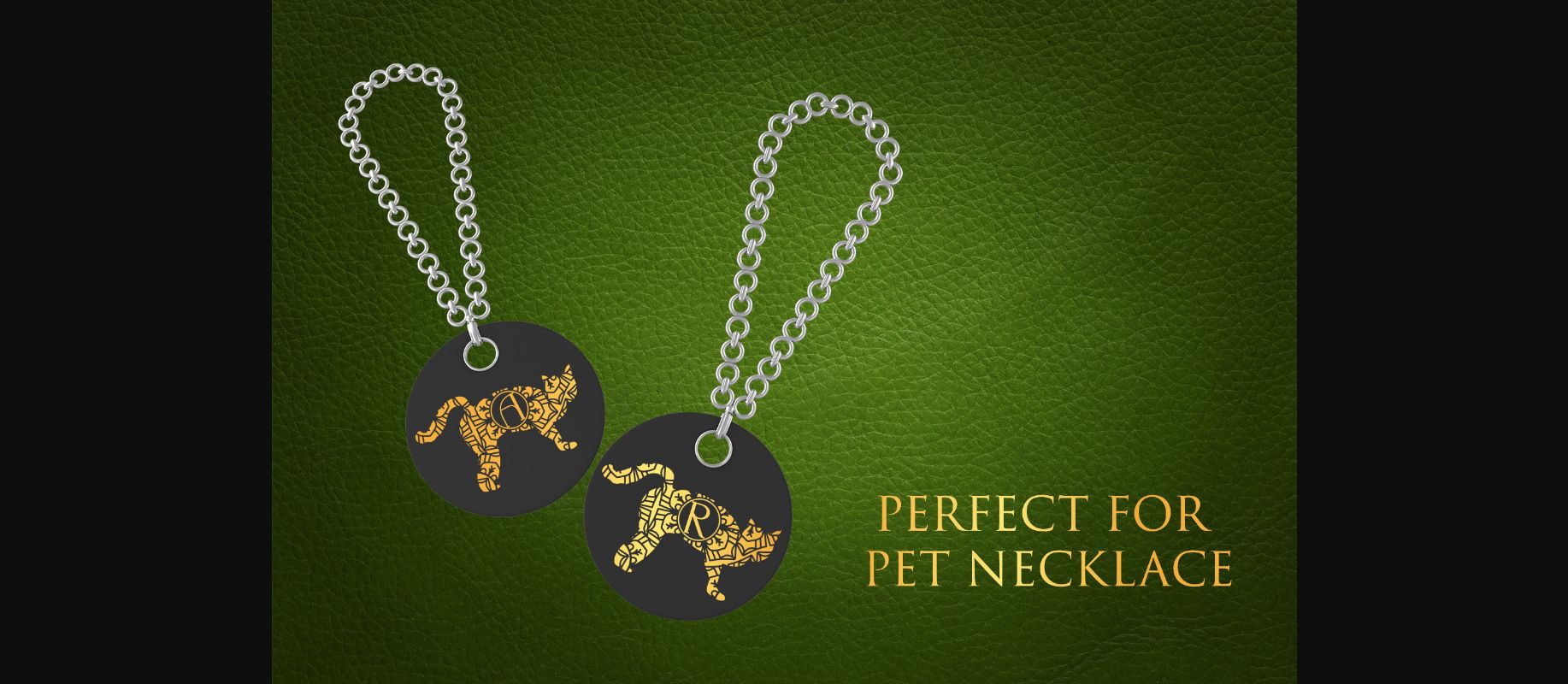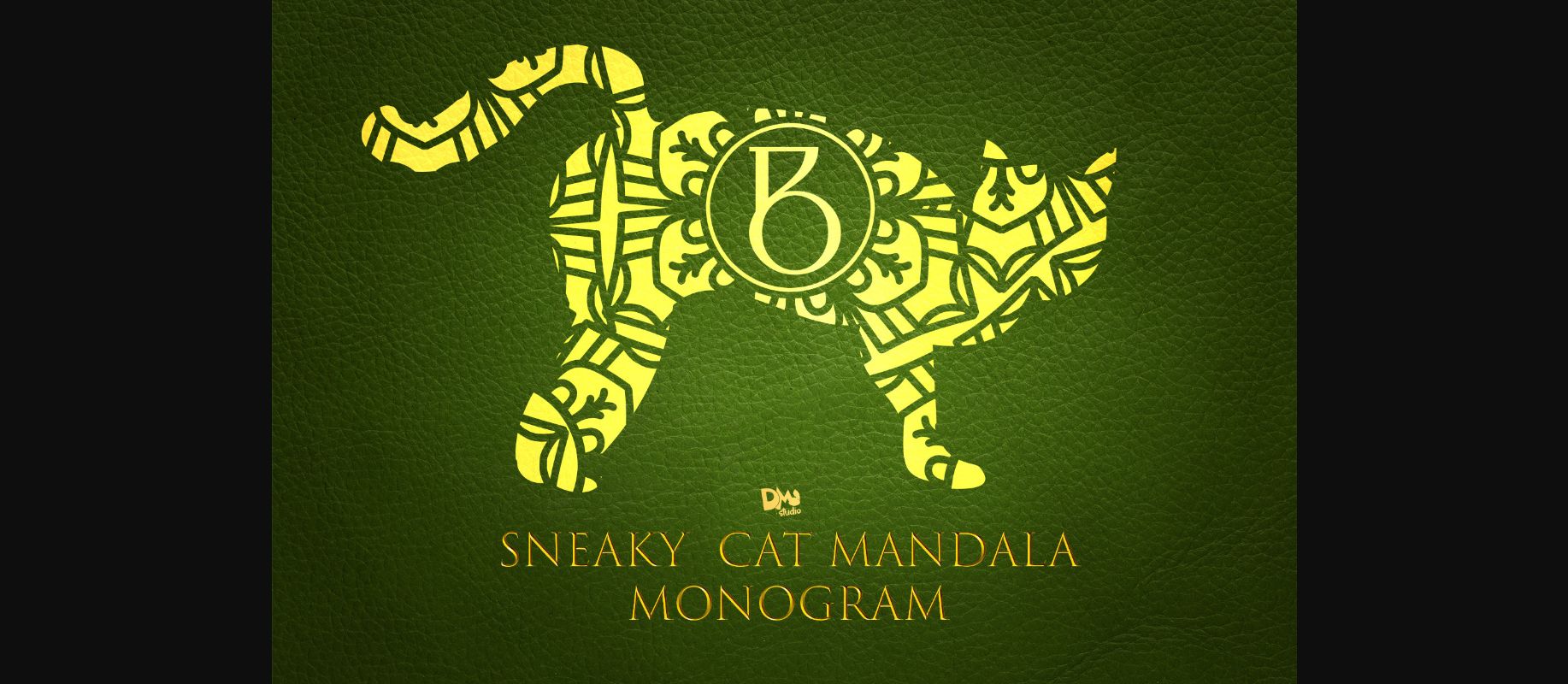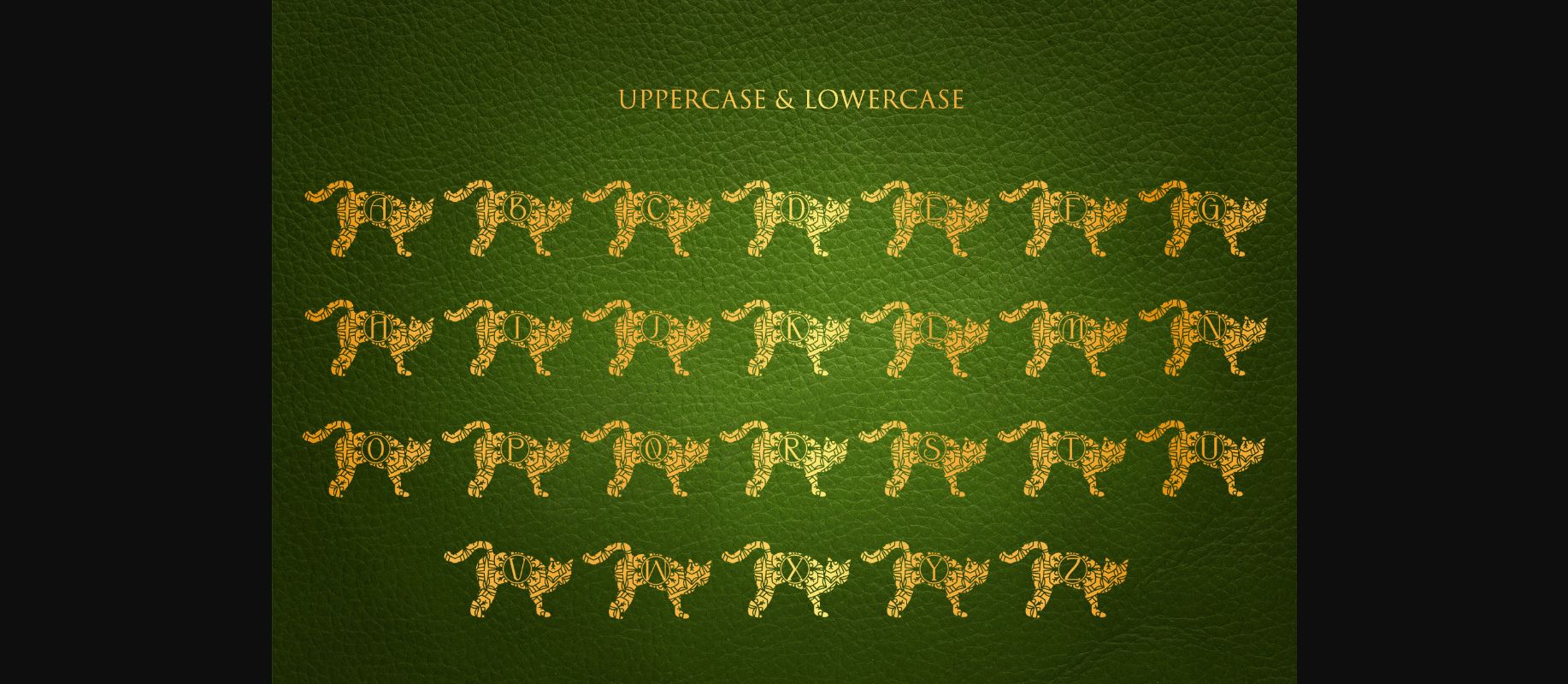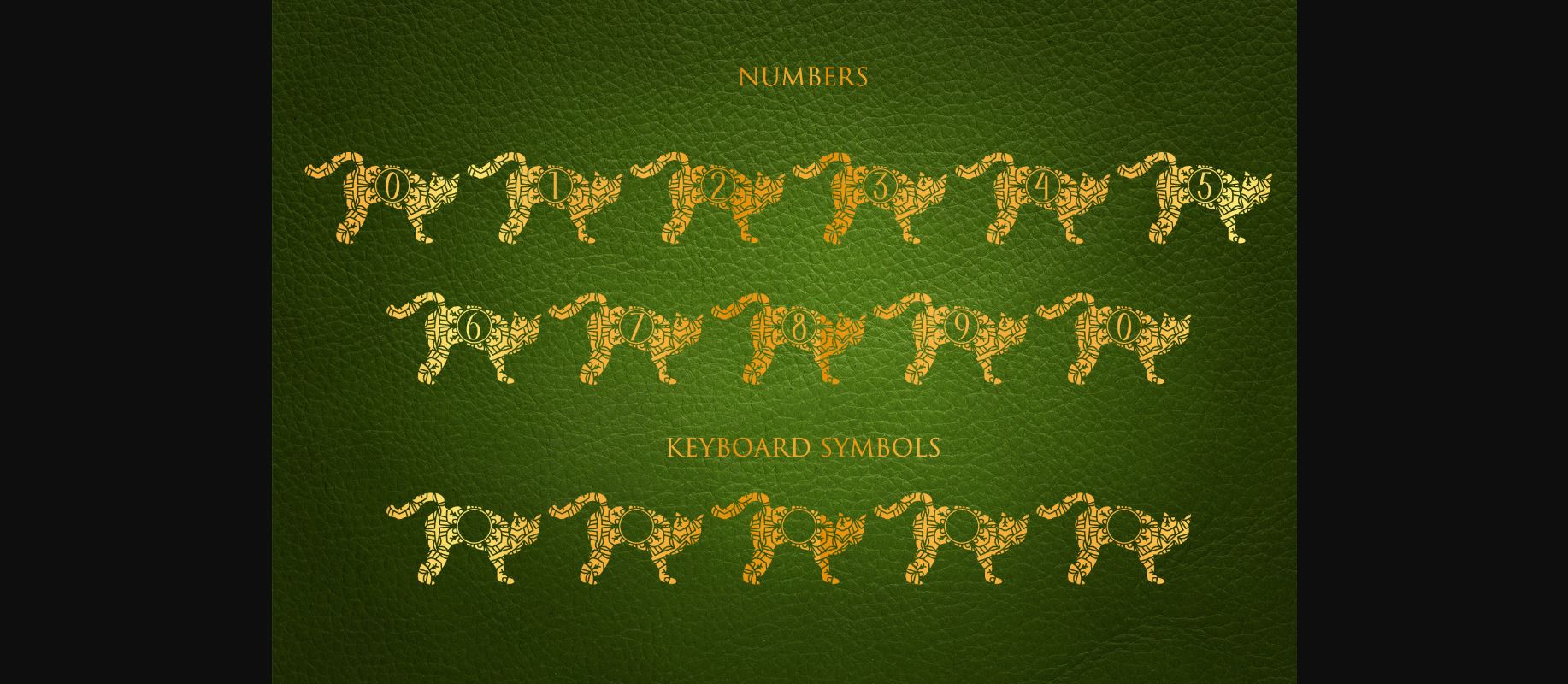
HomeDecorative FontsSneaky Cat Mandala Monogram Font Decorative Fonts Sneaky Cat Mandala Monogram Font FacebookXPinterestWhatsApp 1 of 6 ... Sneaky Cat Mandala Monogram Font Poster 2... Sneaky Cat Mandala Monogram Font Poster 3... Sneaky Cat Mandala Monogram Font Poster 4... Sneaky Cat Mandala Monogram Font Poster 5... Sneaky Cat Mandala Monogram Font Poster 6... About Sneaky Cat Mandala Monogram Font Sneaky Cat Mandala Monogram is the ultimate cat-lovers font. This purrfect decorative typeface will enhance any creative project dedicated to kittens. DOWNLOAD NOW People also explored Wedding Font Popillons Font Yellow Daisy Font Stephany Font Caty Tail Style Font Valentine Day Font Angel Font Hello January Font Xiborgs Font 324 0 TagsSneaky Cat Mandala Monogram Font Previous articleBoxing FontNext articleProud Cat Mandala Monogram Font LEAVE A REPLY Cancel reply Comment: Please enter your comment! Name:* Please enter your name here Email:* You have entered an incorrect email address! Please enter your email address here Website: Save my name, email, and website in this browser for the next time I comment. Personal Use Free Mike Ferrari 16017 Personal Use Free Read more about this font Stereofidelic Personal Use Free Read more about this font Winter Soldier Personal Use Free Read more about this font Zelega Zenega Personal Use Free Read more about this font BLOG Where to Buy American Fonts Online in 2024 Where to Buy American Fonts Online: The Ultimate Guide for 2024 Looking for the perfect American font to elevate your design projects? You're in the... How to Cut Any Font on Cricut: Convert a Font to SVG (Free) Using Fonts in Digital Marketing: Tips to Strengthen Your Brand Identity Modern Sans-Serif Fonts That Brands Love in 2025